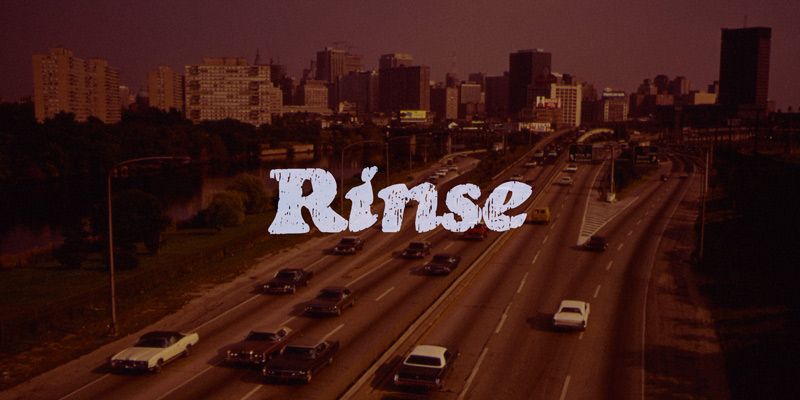
Rinse specimen
Rinse
rough
Rinse is a textured, vintage t-shirt font based on Goudy Heavyface Italic. Letter pair ligatures help break up the monotony of obviously repeating letters.